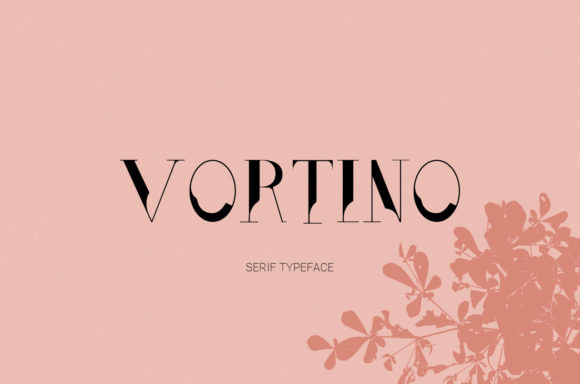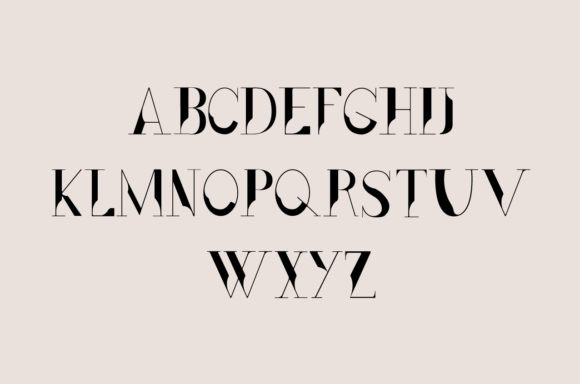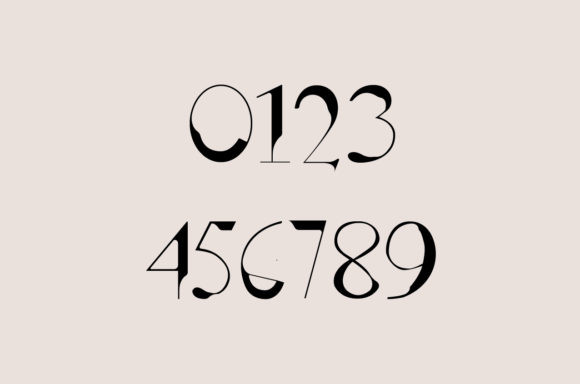
Vortino Font
Vortino is a unique and authentic display font. Extremely versatile, this font is perfect for logos, branding, posters, magazines and more. Take your designs to the next level with Vortino!